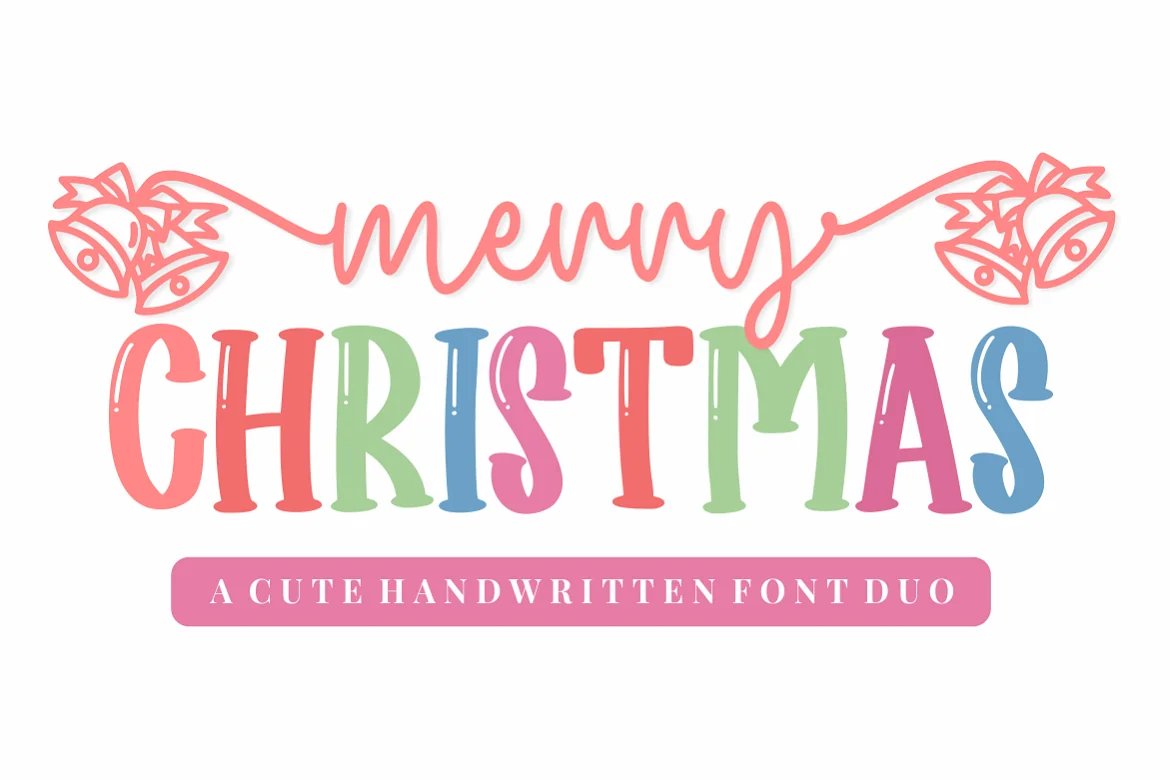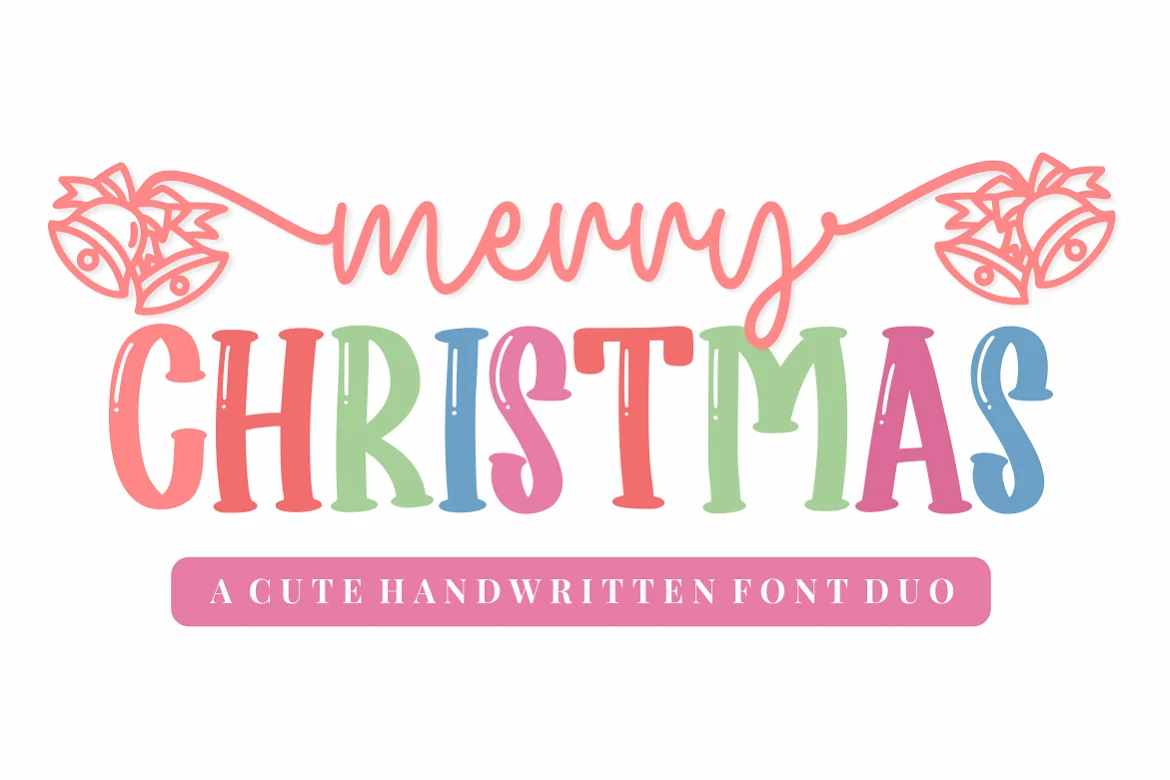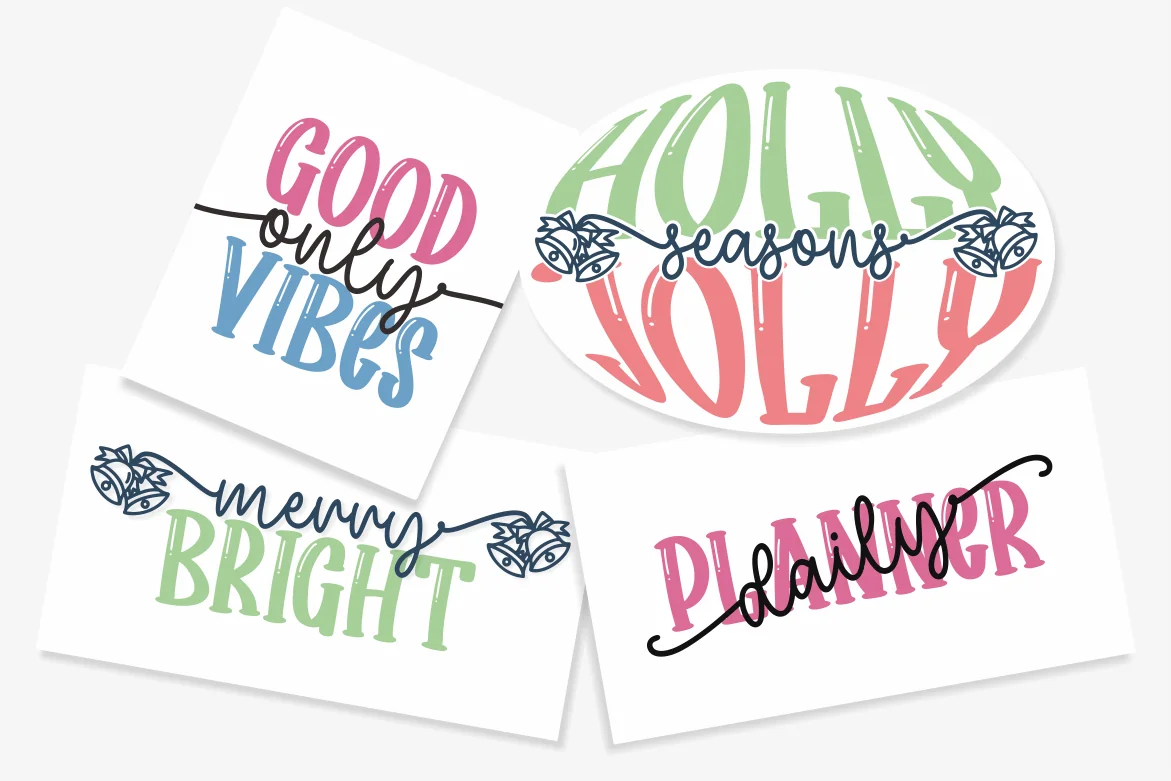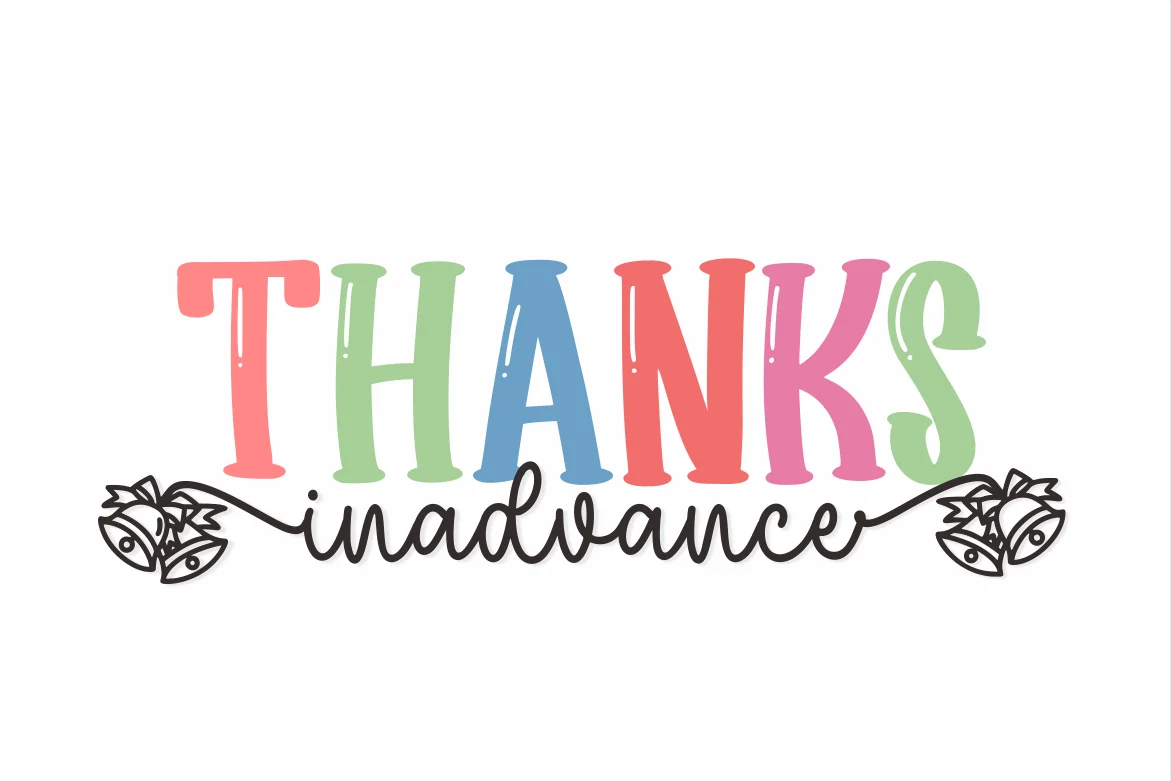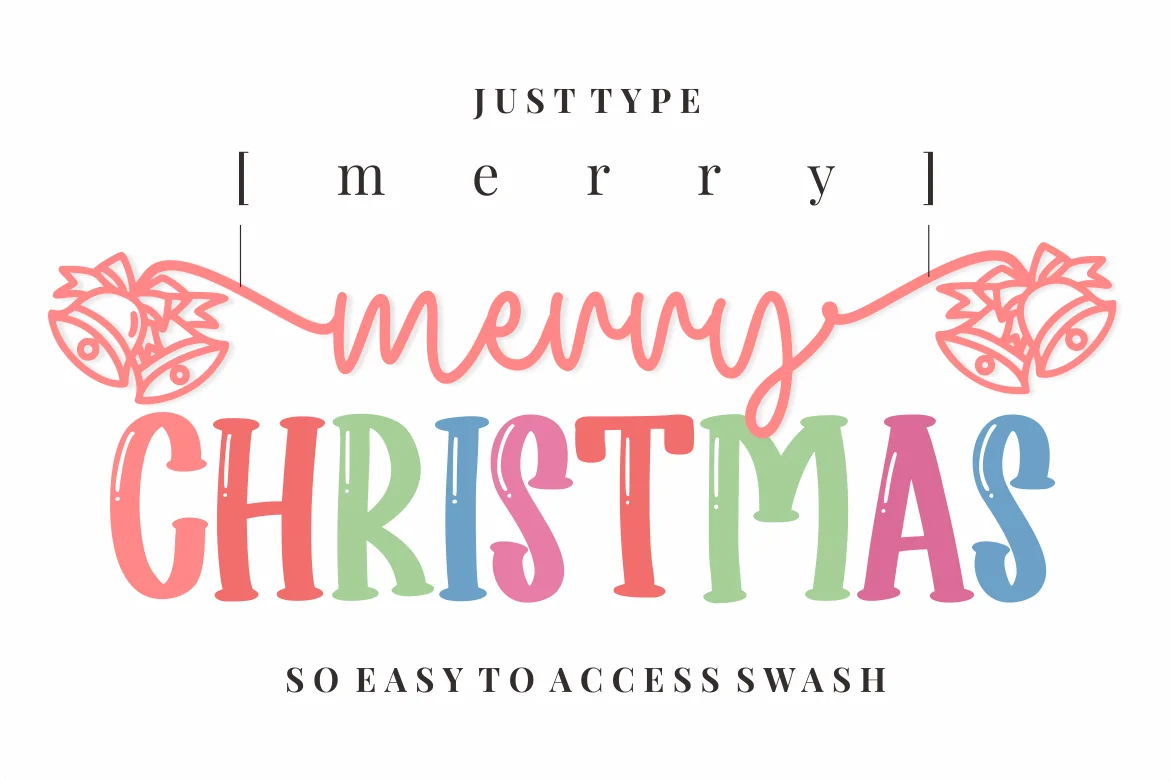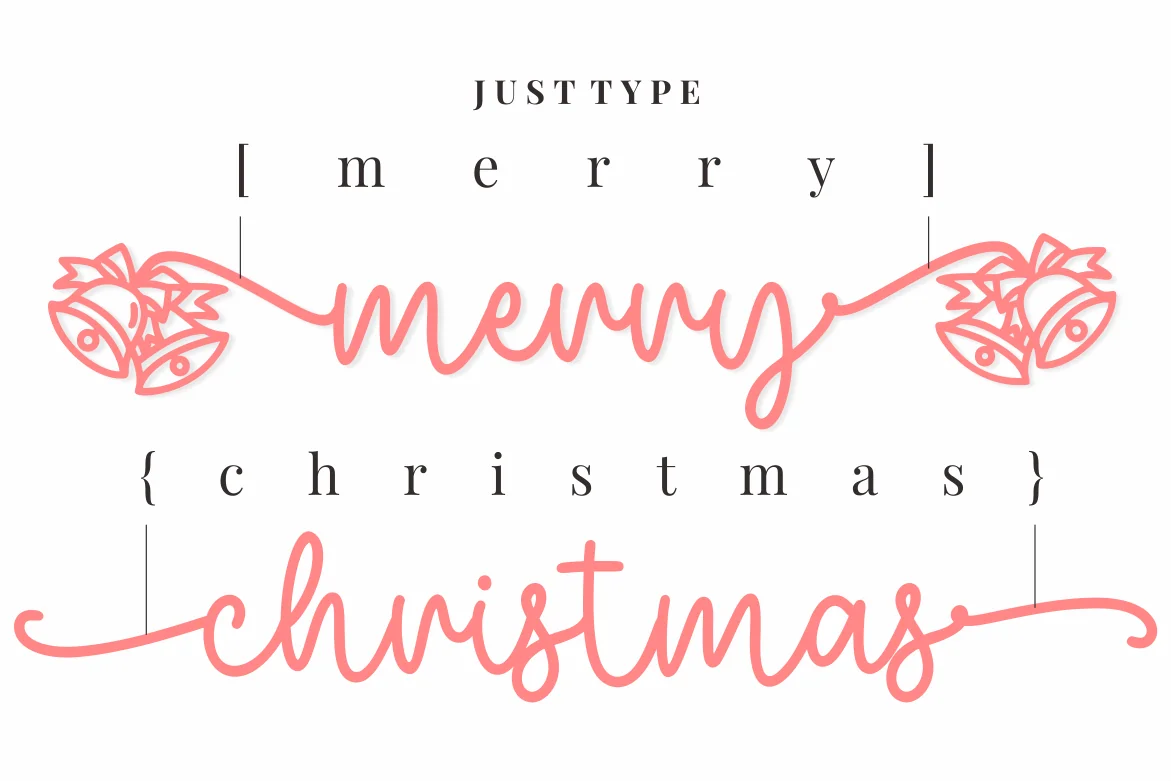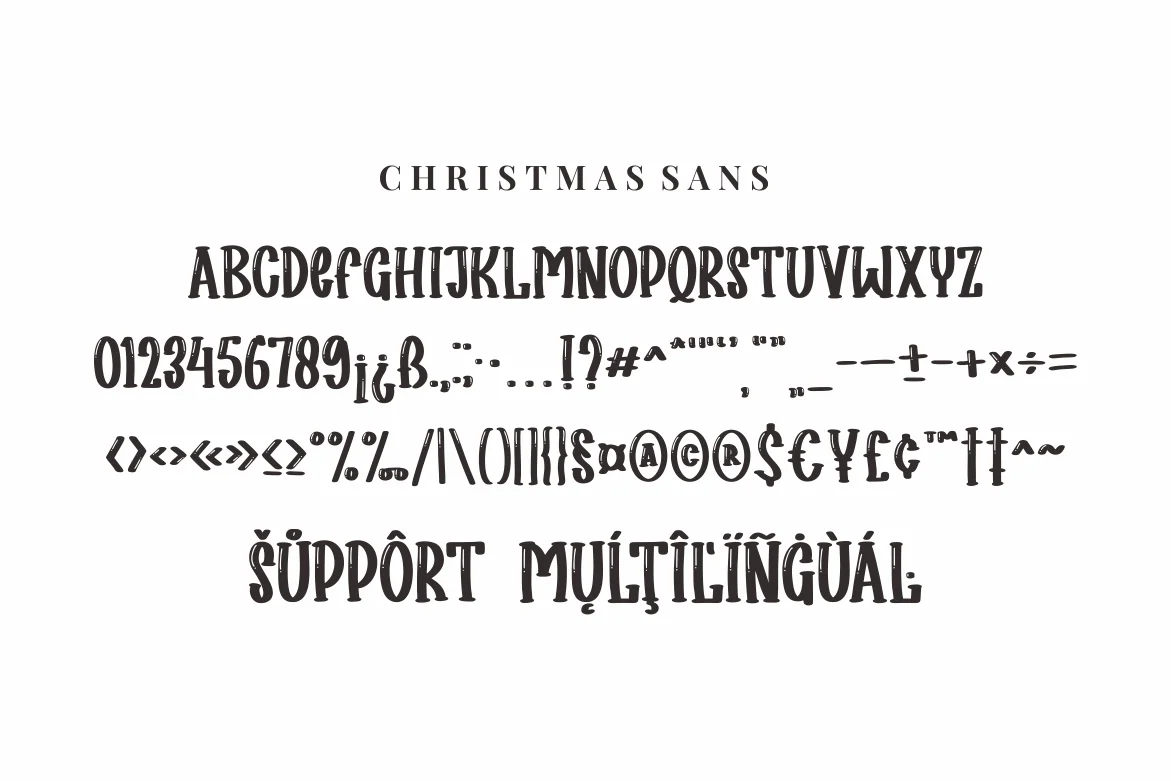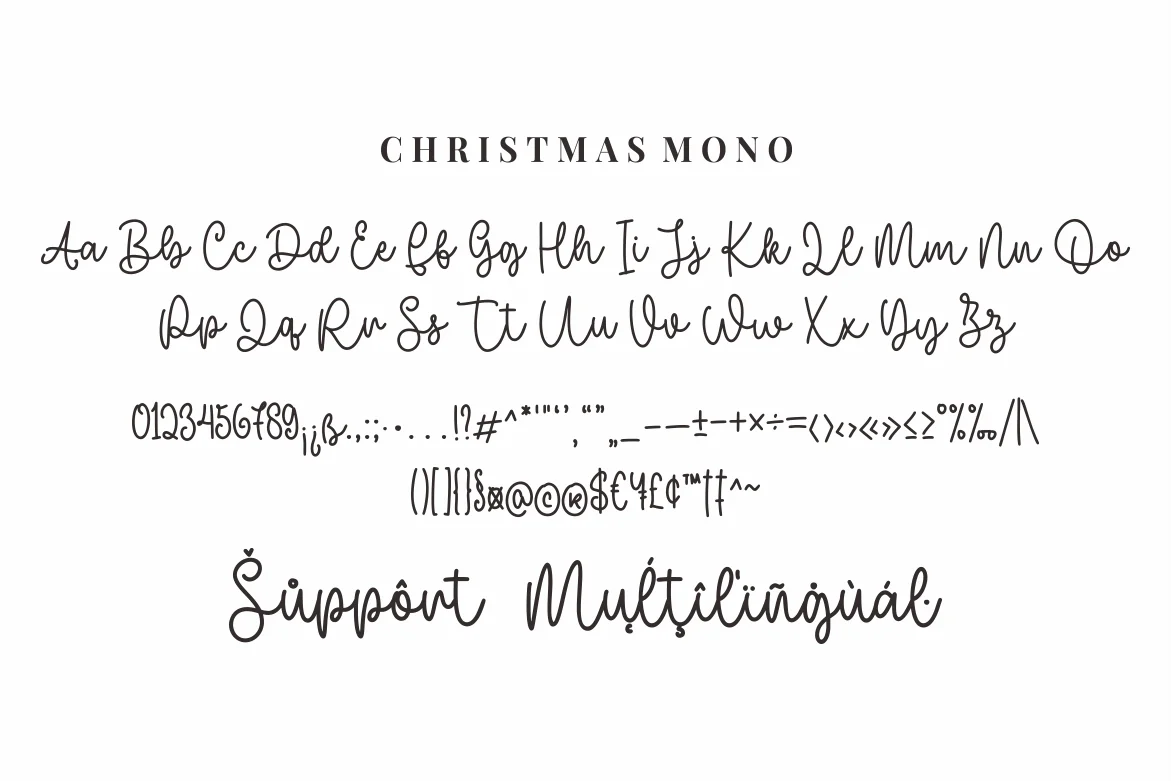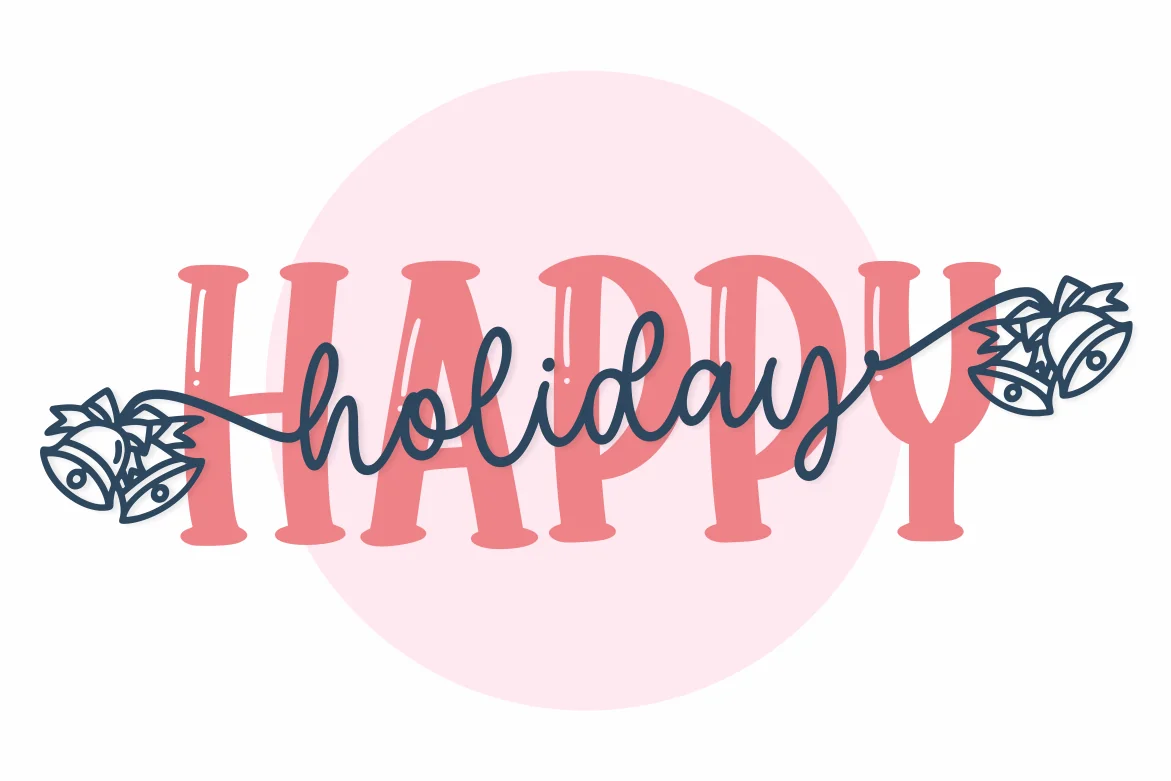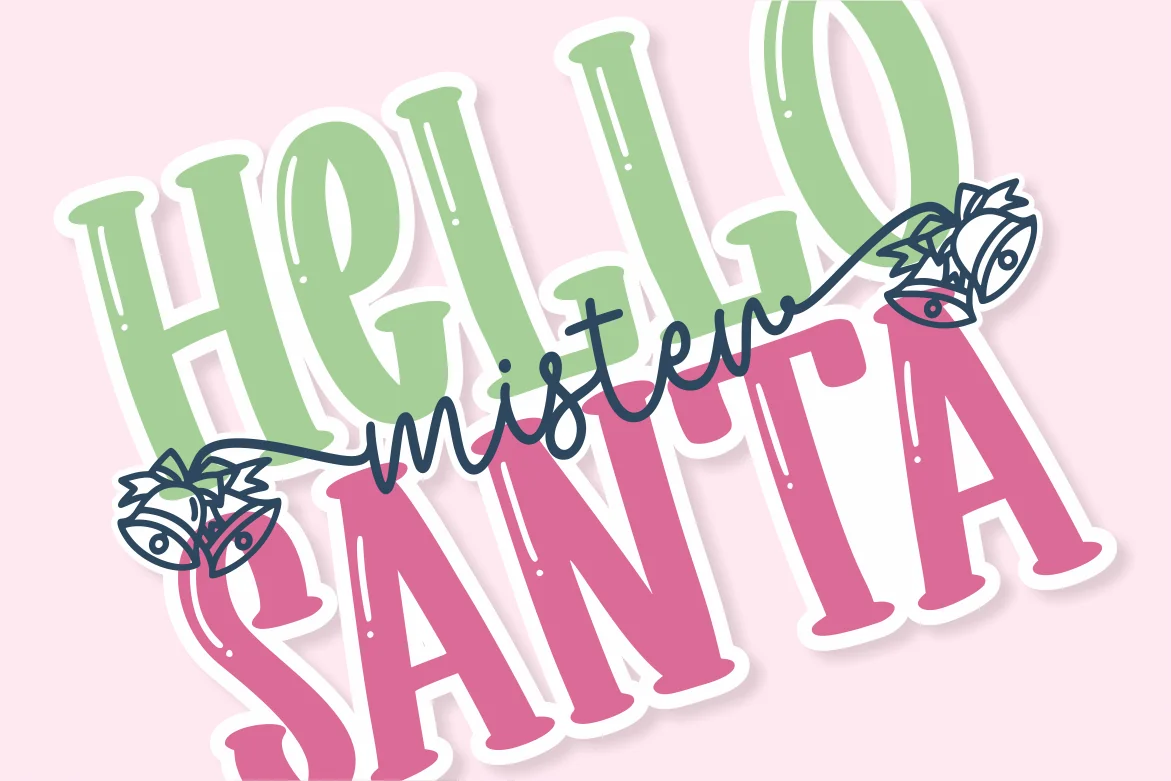
Christmas Duo – A Crafted Font
Introducing, Christmas Duo is a creepy display font suitable for your design project needs, such as; Christmas themes, weddings, social media posts, quotes, overlays on images, tagline logos, posters, print needs, website banners, and more.
- A set of uppercase and lowercase glyphs
- Number, symbol, and punctuation
- Duo Font
- Some Swash